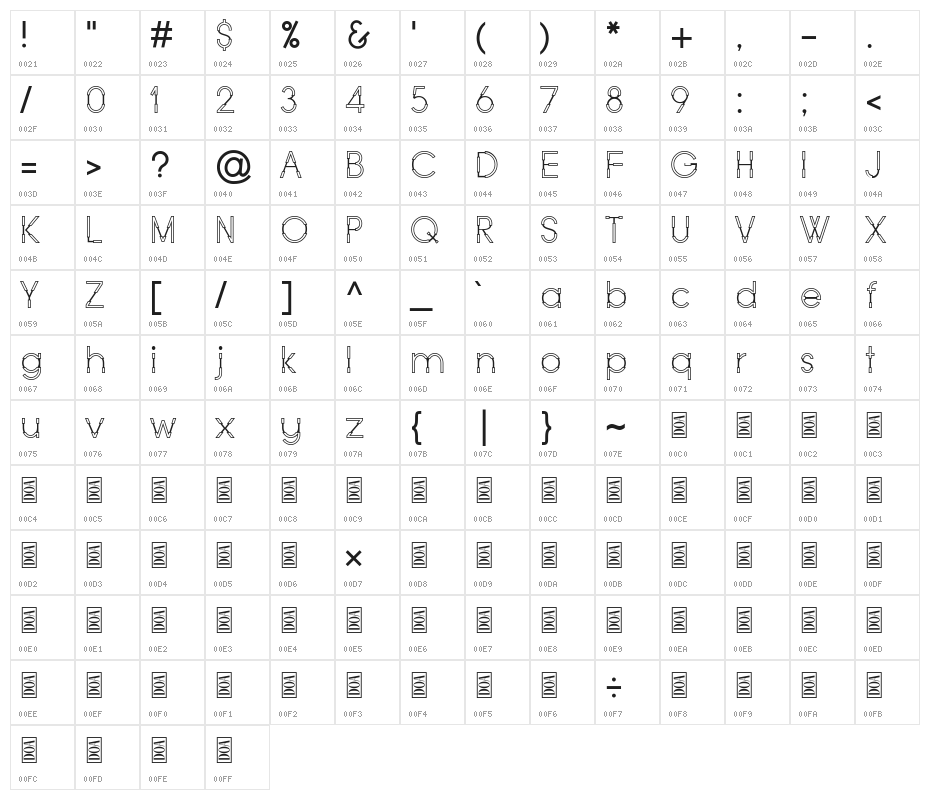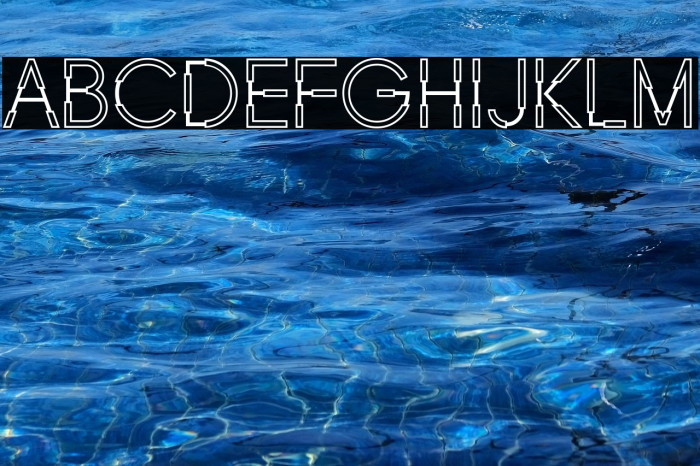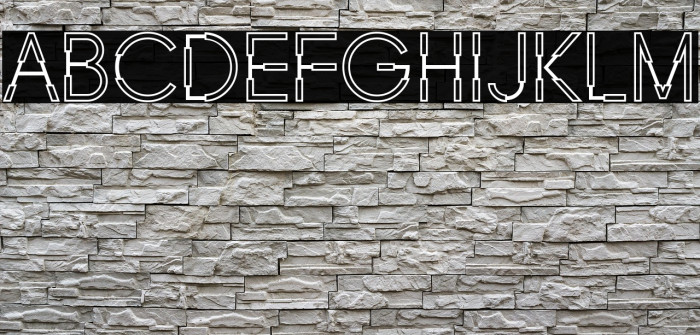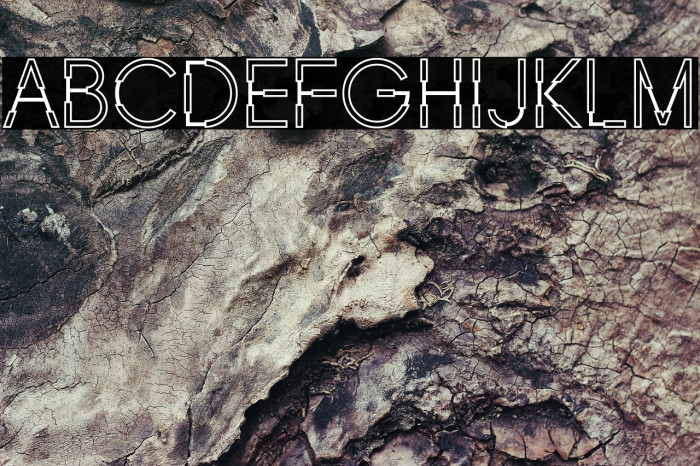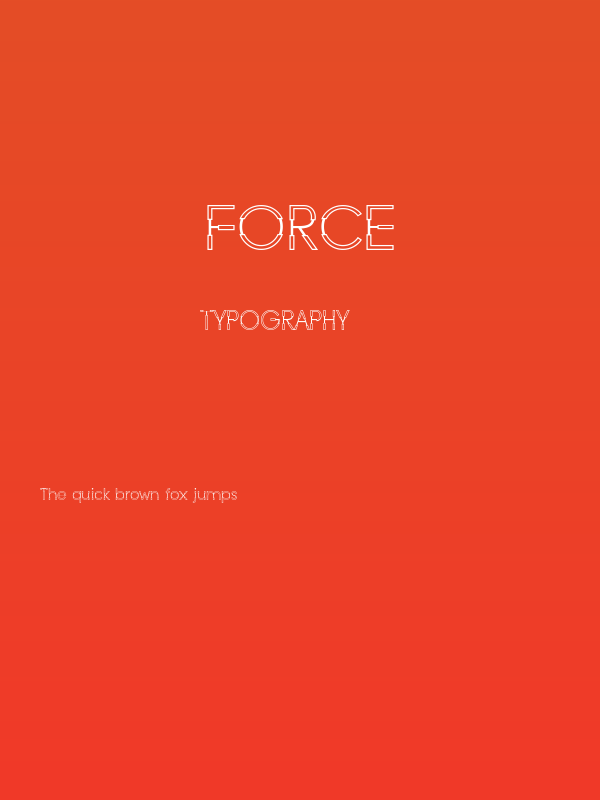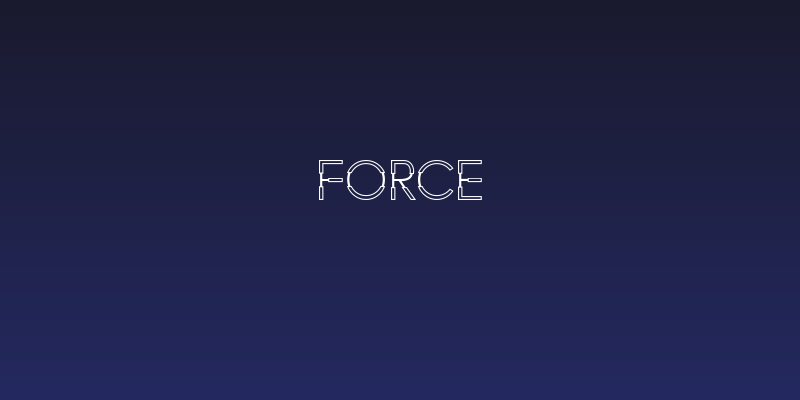
Force Font
Force Description
This font features a modern, geometric design with a distinct outline style. Each character is constructed with clean, straight lines and sharp angles, giving it a futuristic and technical appearance. The uppercase and lowercase letters maintain a consistent height and width, creating a uniform look. The numerals and special characters follow the same design principles, ensuring cohesion across all elements. The font's open structure and clear delineation make it highly legible, even at smaller sizes. Its unique style is suitable for projects that require a contemporary and innovative touch.